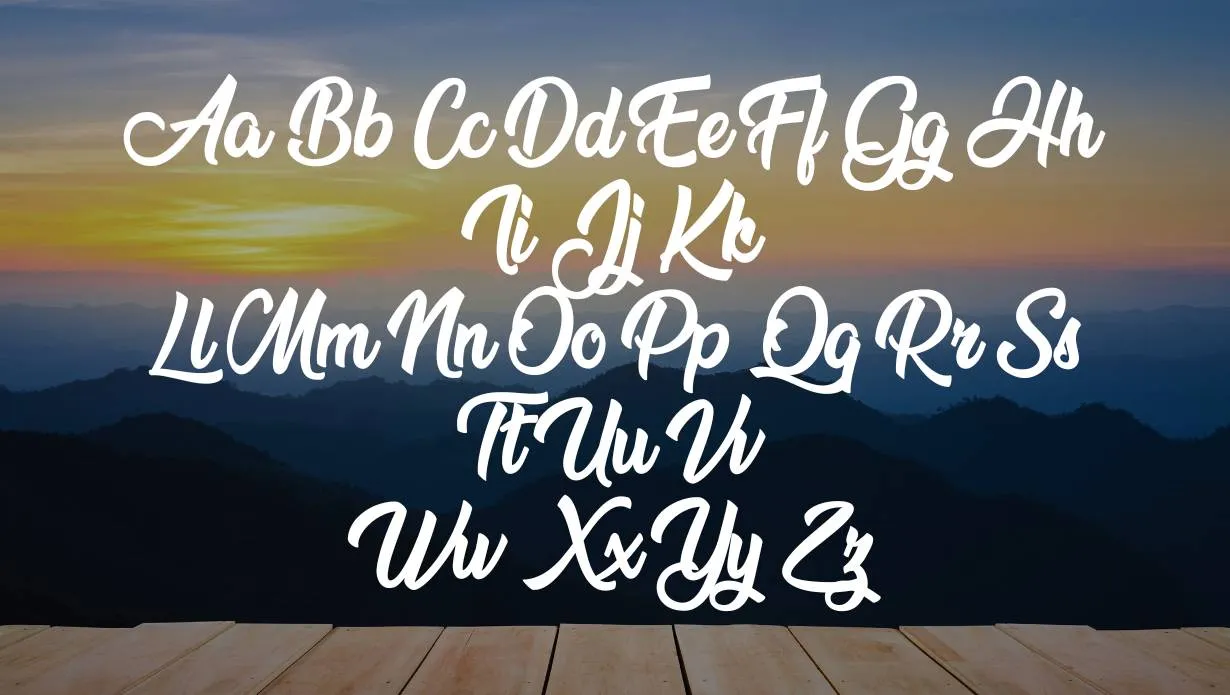
Let your words bloom with Nature of Beauty Font. This graceful typeface draws inspiration from the elegance found in nature, featuring flowing characters that exude tranquility and sophistication.
Whether you’re working on botanical-themed invitations, eco-conscious branding, or any project celebrating the beauty of the outdoors, Nature of Beauty Font adds an organic touch to your design.